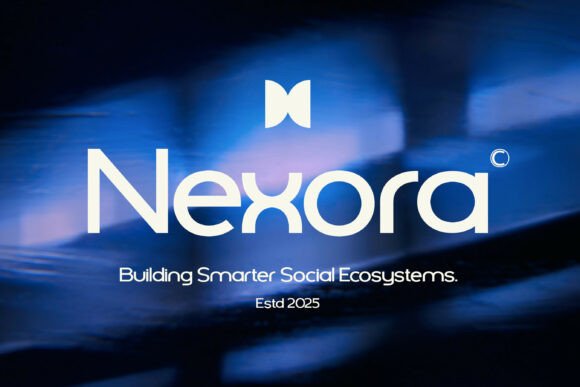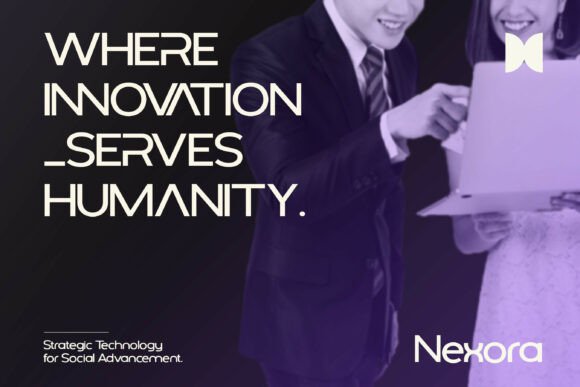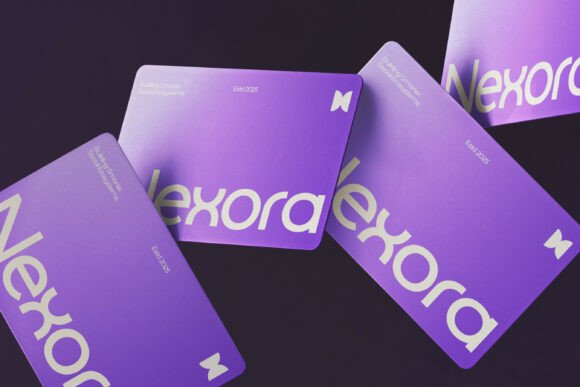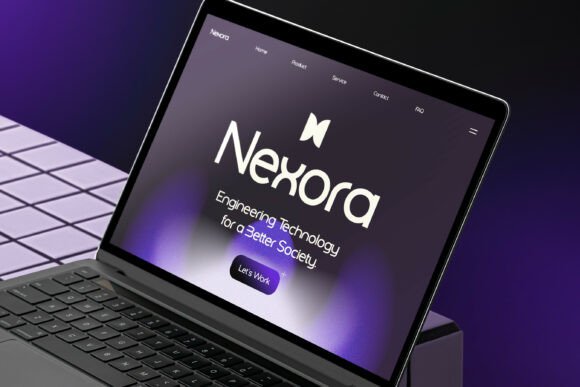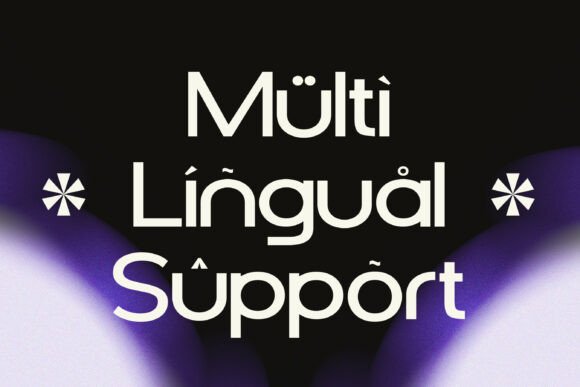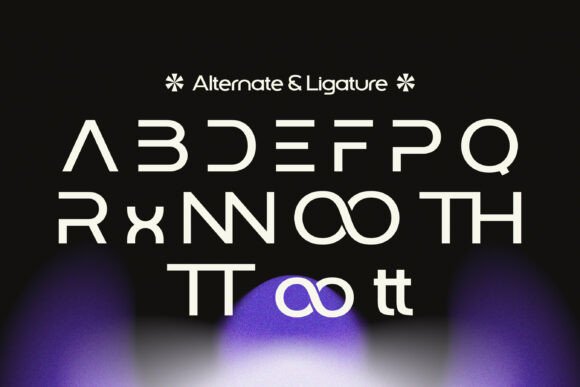
Introduction to Nexora Font
As a designer, you’ve likely found yourself stuck in a creative rut, scrolling through a sea of generic fonts in search of the perfect fit for your next project. But what if you stumbled upon a typeface that not only stood out from the crowd, but also perfectly captured the essence of your brand’s identity? Enter the Nexora Font, a modern sans serif logo typeface designed to make a bold statement.
With its unique blend of smooth curves and strong structure, Nexora Font is the perfect design resource for creatives looking to elevate their projects to the next level. Whether you’re working on a logo, brand mark, or packaging design, Nexora Font offers exceptional clarity and a memorable presence that’s sure to leave a lasting impression. And the best part? It’s available for free download, making it an invaluable asset for any creative project.
Key Features of Nexora Font
- Unique, modern font style with a transparent background, perfect for various design applications.
- Designed to be highly legible, with clear lines and a consistent font size, making it perfect for body text and headings.
- Perfect for use in logos, branding materials, and other design elements where a modern, sleek look is desired.
Honest Review: Nexora Font
I recently had the chance to work with the Nexora Font, and I must say it’s been a game-changer for my creative project. This design resource is a must-have for any serious designer looking for a high-quality font to elevate their work.
What works well: ✨ The Nexora Font is incredibly versatile and can be used for a wide range of applications, from logos to body text. The font’s clean and modern design makes it perfect for creating a sleek and professional look. Additionally, the transparent background feature allows for seamless integration with other design elements.
- High quality: The font’s crisp and clear typography ensures that your design stands out.
⚠️ One limitation I’ve noticed is that the font may not be suitable for very small text sizes. However, this is a minor issue and can be easily resolved by adjusting the font size or using a different font.
Overall, I’m thoroughly impressed with the Nexora Font. Its high quality, versatility, and transparent background make it an excellent addition to any designer’s toolkit. Whether you’re working on a personal or commercial project, the Nexora Font is definitely worth checking out.
Tips for Getting the Most Out of Nexora Font
To get the most out of Nexora Font, use it in combination with other design elements to create visually appealing graphics. Experiment with different font sizes, colors, and styles to find the perfect combination for your creative project.
Common Use Cases for Nexora Font
Nexora Font is ideal for use in a variety of creative projects, including logos, social media graphics, and infographics. Its high-quality design and transparent background make it a popular choice among designers and artists.
Alternatives to Nexora Font
Open Sans is a high-quality, free download font suitable for creative projects that require a modern and clean design. It features a transparent background, making it perfect for use on various design resources. Use Open Sans for headings and body text in your design project. Compared to Nexora Font, Open Sans has a more straightforward and minimalistic design.
Lato is a free download font ideal for design resources that need a high-quality, elegant, and sophisticated look. It has a transparent background, making it suitable for use on various creative projects. Use Lato for titles, headings, and body text in your design project. Compared to Nexora Font, Lato has a more refined and classic design.
Q: Can I use the Nexora Font with a transparent background in my design project?
Yes, the Nexora Font includes a transparent background option, making it easy to use in designs where a transparent or semi-transparent background is required. This feature allows you to create visually appealing and creative projects, such as logos, icons, and graphics, with a high degree of flexibility and customization.